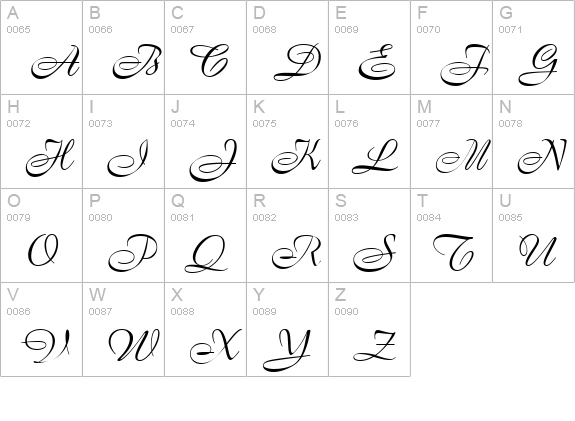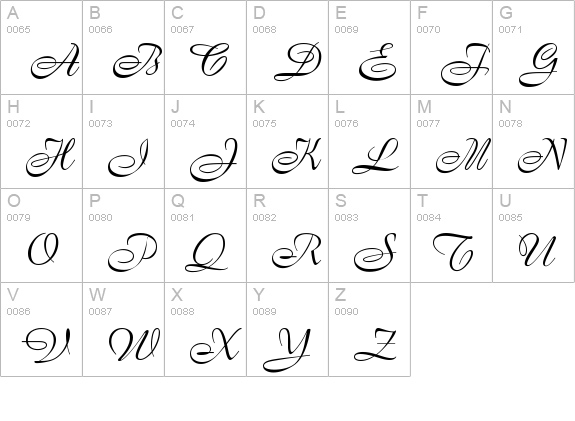
FrancineHmk Font Details
Introducing FrancineHmk font, a stylish and modern typeface that exudes elegance and sophistication. With its sleek lines and contemporary design, FrancineHmk is perfect for various design projects, from branding to editorial work. This versatile font comes in a range of weights and styles, making it suitable for both headlines and body text. Its clean and legible appearance ensures readability across different mediums, whether in print or digital formats. And the best part? FrancineHmk is available for free download at FontsMarket.com. Yes, you read that right - this high-quality font can be yours at no cost, making it a valuable addition to your font library without breaking the bank. So why wait? Elevate your design projects with FrancineHmk font today and experience the perfect blend of style and accessibility.